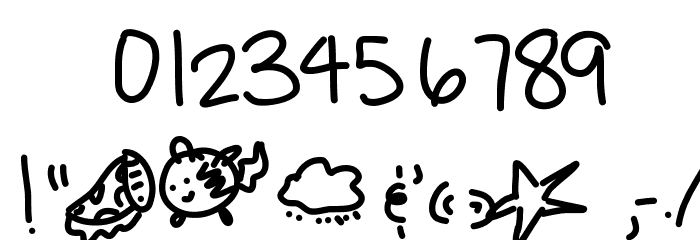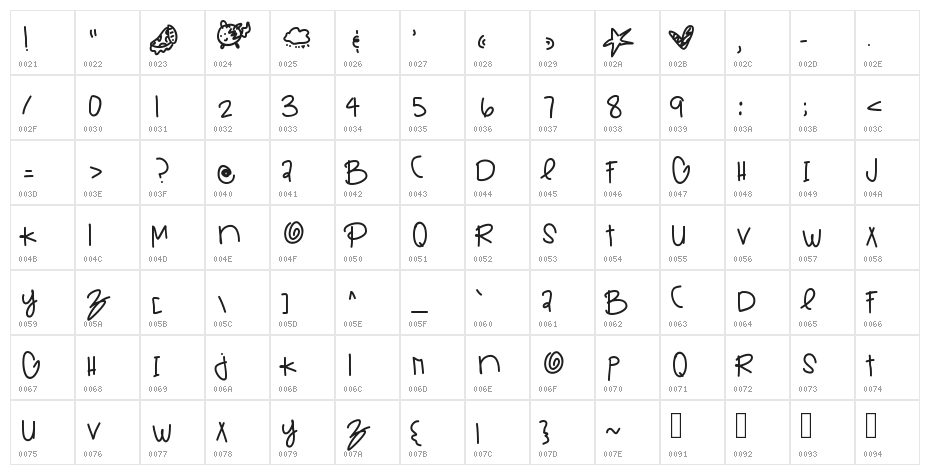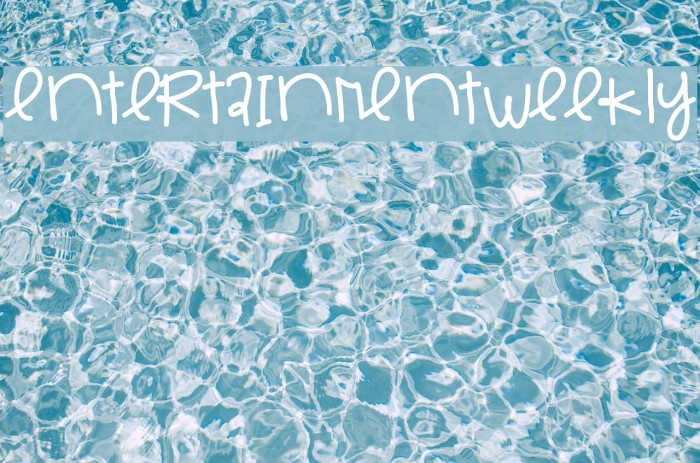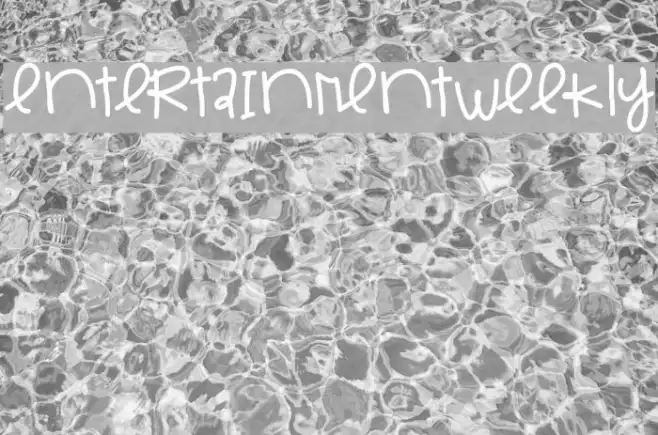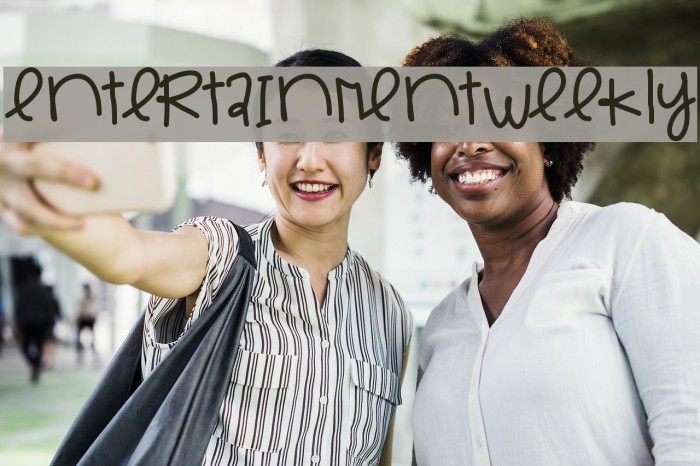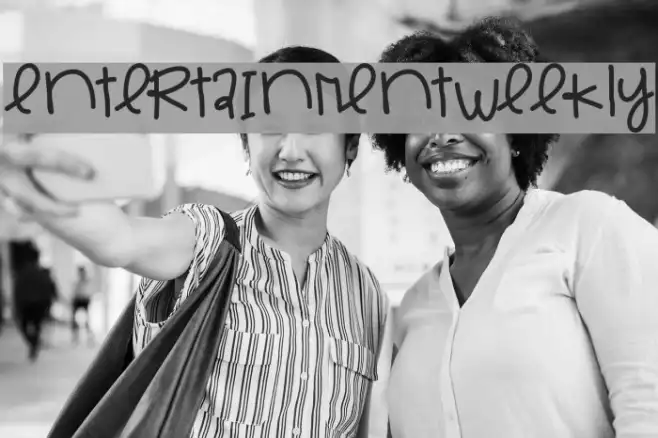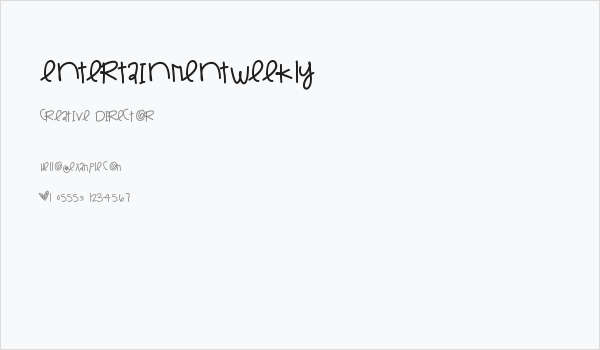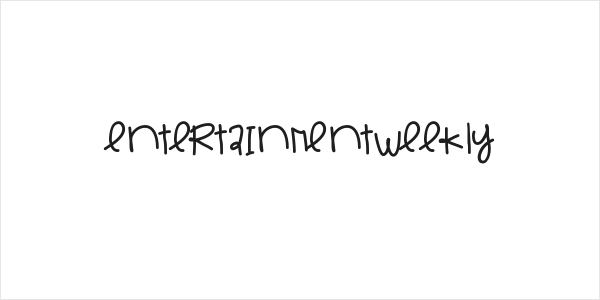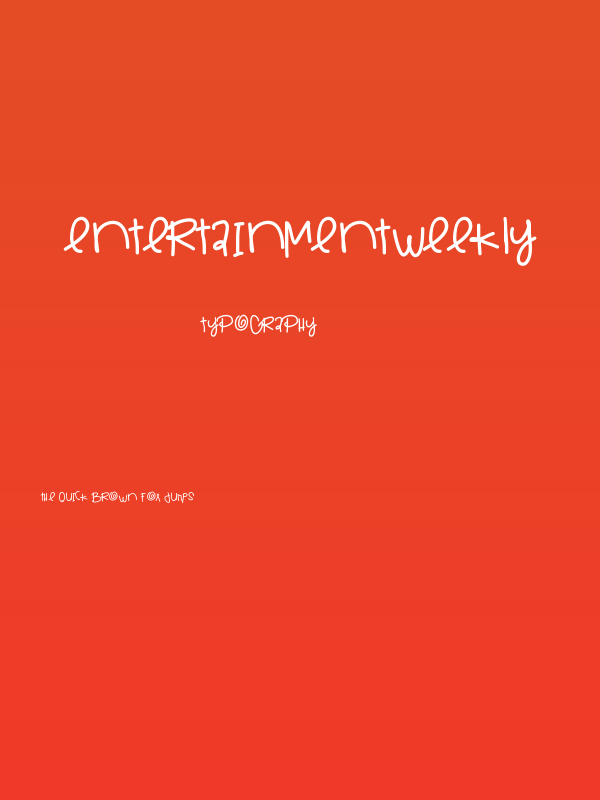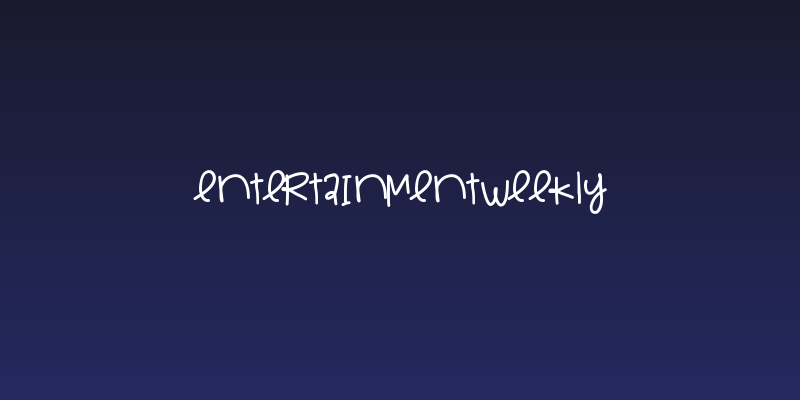
EntertainmentWeekly Font
This playful and whimsical font features a handwritten style with a casual, informal appearance. The letters are characterized by their uneven strokes and quirky, irregular shapes, giving them a lively and energetic feel. The uppercase and lowercase letters maintain a consistent style, with some letters like 'O' and 'Q' incorporating unique spiral designs. Numbers are bold and rounded, matching the overall playful theme. Special characters include a variety of fun and creative symbols, such as a taco, a cat, and a cloud, adding to the font's charm and versatility.